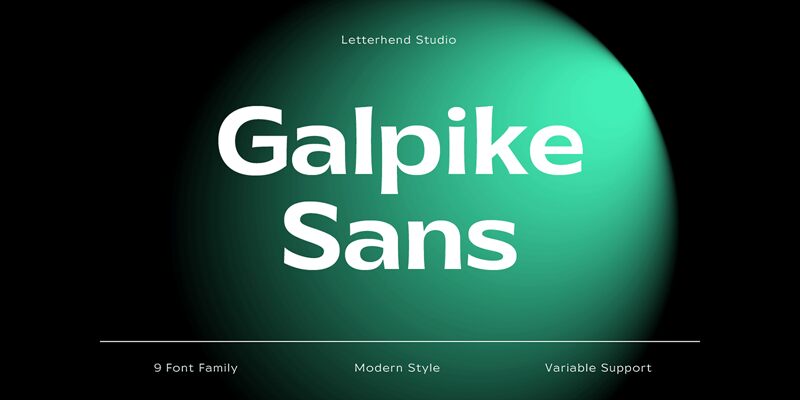
Galpike, designed by Umar Al Farouq, is a versatile semi-light sans-serif font with semi-expanded width. Its clean and modern design makes it suitable for a variety of projects, from minimalist logos to bold headlines. Galpike's legibility ensures it's perfect for body text in magazines or websites, while its subtle curves and unique letterforms add character to any design. Whether you're designing an elegant wedding invitation or a sleek tech startup website, Galpike is sure to make your project stand out. Try it today and see the difference this stunning font can make!